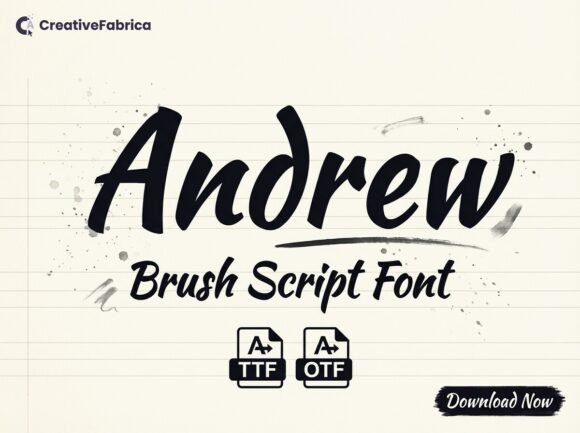
The Ultimate Guide to Andrew Font: Elevate Your Designs with a Stunning Display Font
I’ll never forget the time I was working on a project for a client who needed a bold, eye-catching font to make their brand stand out. I spent hours scouring the internet for the perfect font, but nothing seemed quite right. That was until I stumbled upon Andrew Font. This stunning decorative display font has been a game-changer for my designs, and I’m excited to share its awesomeness with you! 😊
• ✅ Unique artistic elements that add a touch of sophistication to any design
• ✅ Strong visual personality that commands attention
• ✅ Intricate details and creative letterforms that make it perfect for high-impact designs
• ✅ Versatile enough for bold headlines, artistic logos, and creative packaging
While Andrew Font is an amazing font, there are a few things to keep in mind:
• 🤔 It may not be the best choice for body text or long paragraphs, as its intricate details can make it harder to read
• ⚠️ Some of the more intricate details may not display well at smaller font sizes
The Story Behind Andrew Font
Andrew Font was designed by a team of creatives who wanted to create a font that would make a statement. With its unique artistic elements and strong visual personality, this font is perfect for designers who want to break away from the ordinary. Whether you’re designing a modern poster, a unique brand identity, or eye-catching social media content, Andrew Font adds an instant “wow” factor to any project.
Font Name Andrew Font
Author kulturrno
Q: What type of designs is Andrew Font best suited for?
A: Andrew Font is perfect for high-impact designs where the typography needs to do the talking, such as poster design, branding and logos, apparel and merch, social media, and packaging.
Q: Can I use Andrew Font for body text or long paragraphs?
A: While Andrew Font is an amazing font, it’s not the best choice for body text or long paragraphs. Its intricate details can make it harder to read, so it’s best used for headlines and titles.